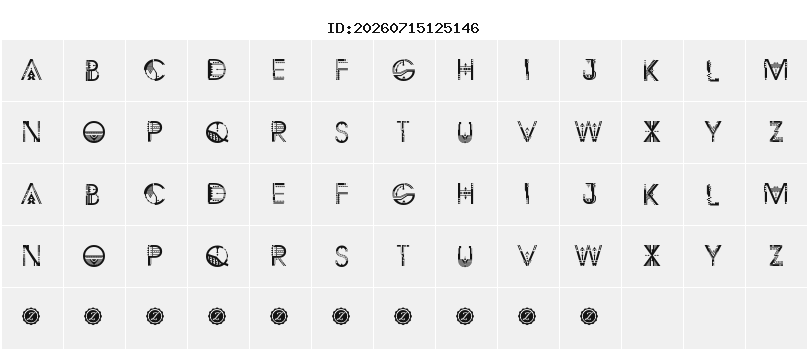
• Font Name: ZILAP GEOMETRIK
• Designer: Juan Guillermo Navarro Barrios ( Juancho Navarro)
• Manufacturer: Zilap
About ZILAP GEOMETRIK.ttf
ZILAP GEOMETRIK.ttf is a modern, elegant sans-serif font designed for ultimate readability and visual harmony. Perfect for branding, headlines, web design, and print materials.